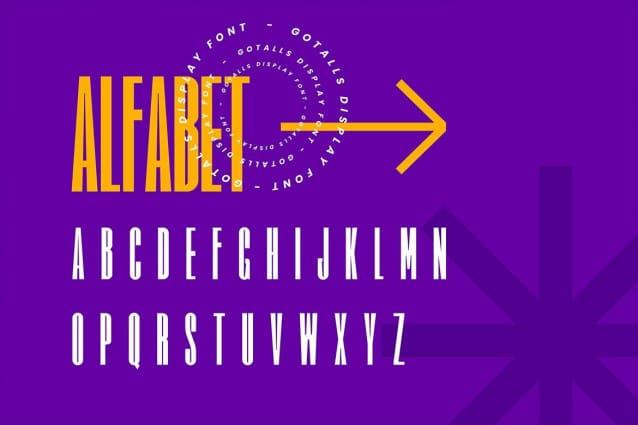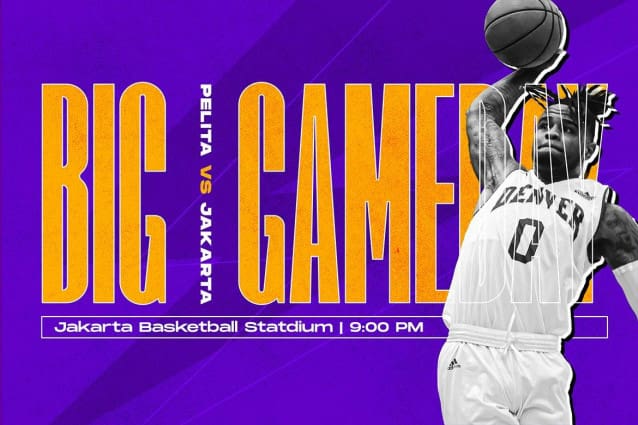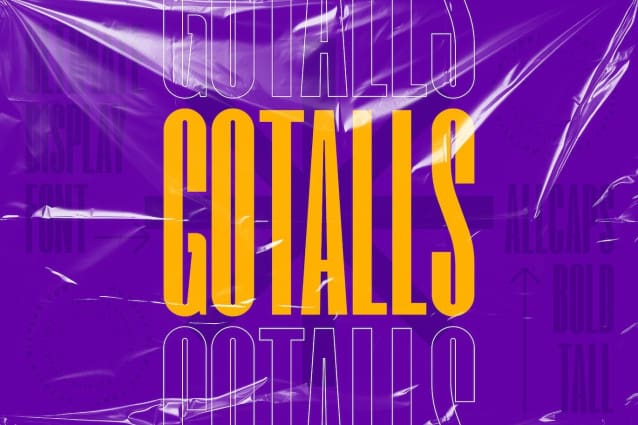
Gotalls Font
Gotalls Font is an awesome sports font with wide italic fonts, modern cutouts, and a dynamic slant. Ideal for sports titles, Football matches, game logos, and monograms or other modern dynamic text. Gotalls compares favorably with legibility and size, creating the effect of power.check it out and grab it right away.